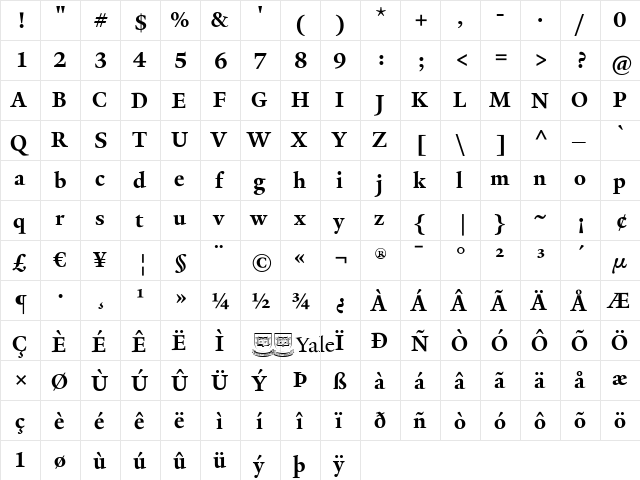
YaleAdmin Bold
| Foundry | Carter & Cone Type Inc |
YaleAdmin is a composed and adaptable typeface that performs quietly and consistently across a wide range of design contexts. The heavy weight commands attention and anchors typographic hierarchies.